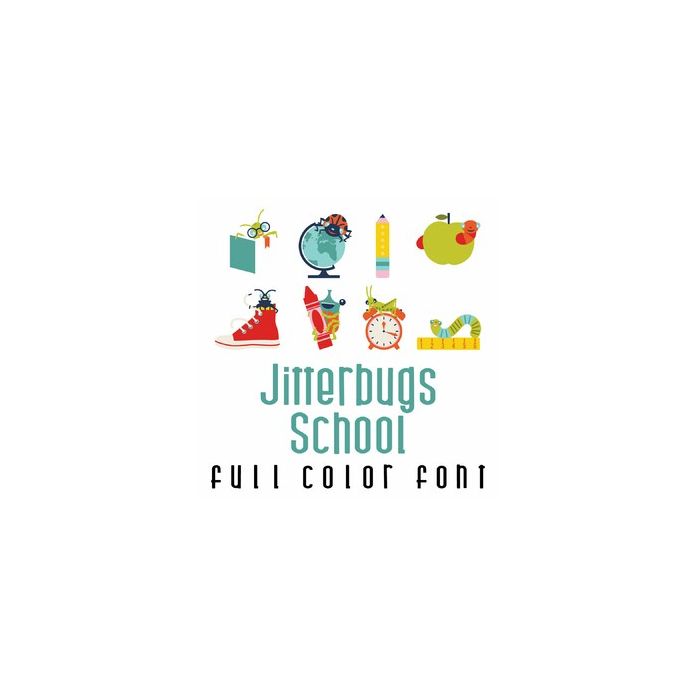
This adorable full color doodlebat font features bugs all ready for school. Perfect for classrooms, cards, crafts, gifts, decor, scrap book pages, planner stickers and more!